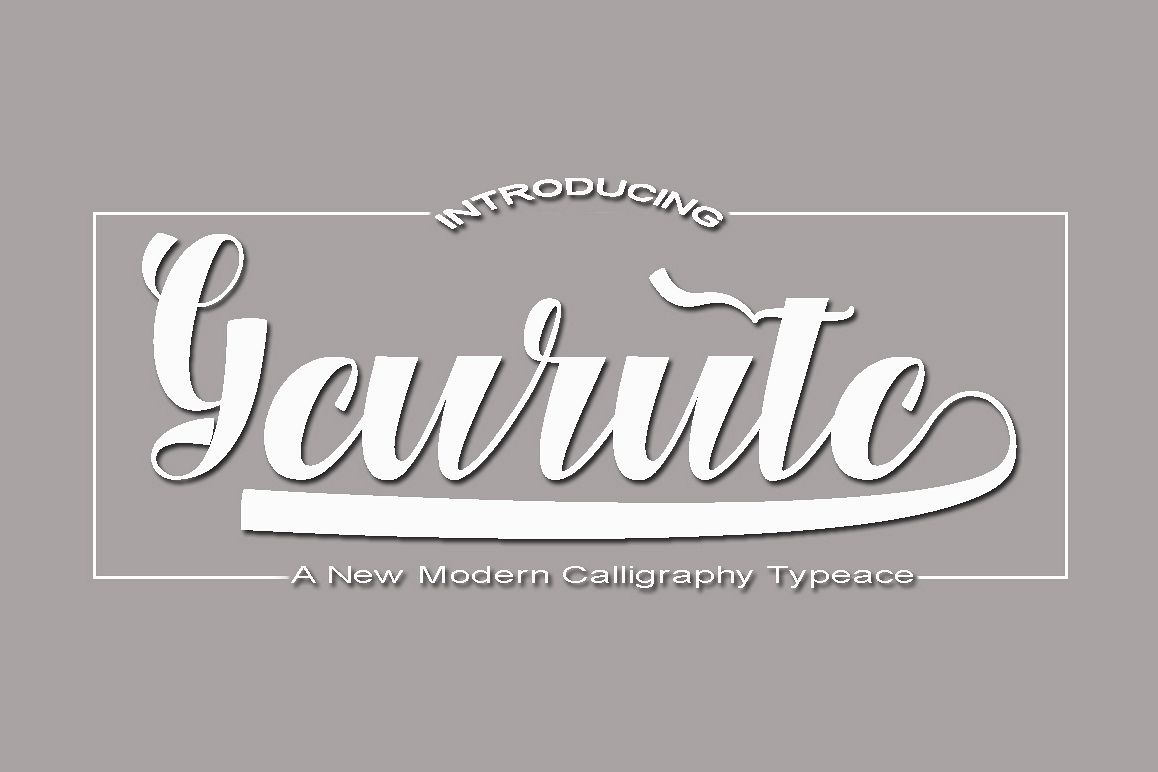
Geurute
Geurute Modern Calligraphy. This font was designed by handwriting, and it has a modern and unique forms of calligraphy, the writing style is very natural.
The Features of this fonts is;
Standart ligatures
Stylistic Alternates
Contextual Alternates
Stylistic sets